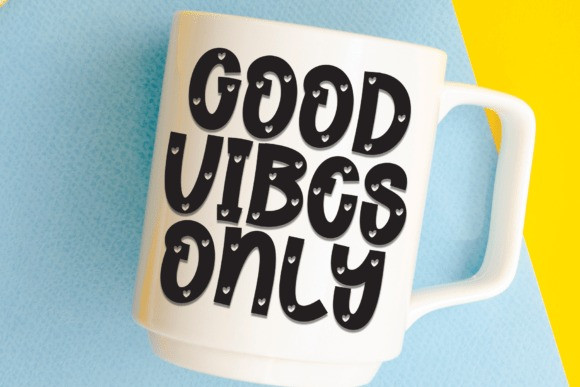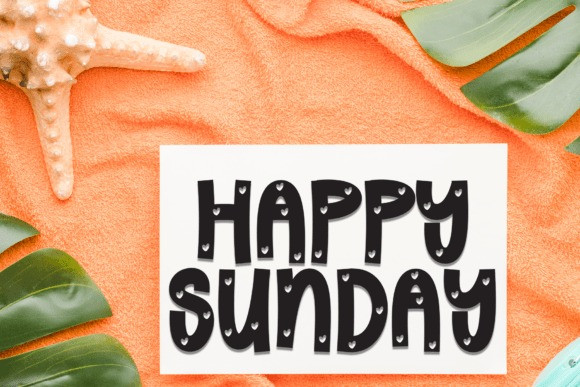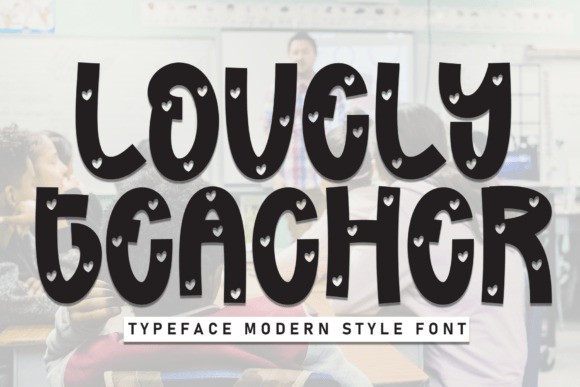
Lovely Teacher Font
Lovely Teacher Font a charming and delightful handwritten display font that emanates a warm, welcoming vibe. Exuding a playful yet elegant charm, this font adorns wedding invitations, cards, and countless other designs with a spark of whimsy. If you’re seeking a novel way to infuse your design with a sense of joy and friendliness, this font offers the perfect solution. Ideal for those creative projects that require a sprinkle of fun, this font breathes life and character into every letter. Both sweet and original, this handwritten font carries touches of romance and joy, making it a quintessential option for any heartwarming message or joyful occasion.